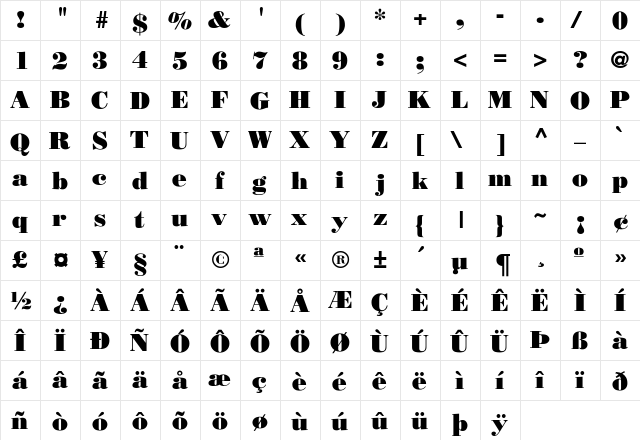
Dave Exta Heavy Bold Regular
Design Context for Dave Exta Heavy Bold Typeface
Dave Exta Heavy Bold is a composed and adaptable typeface that performs quietly and consistently across a wide range of design contexts. Its bold stroke weight gives it real presence on the page.